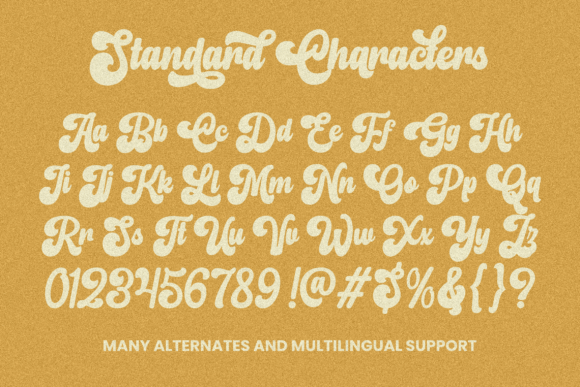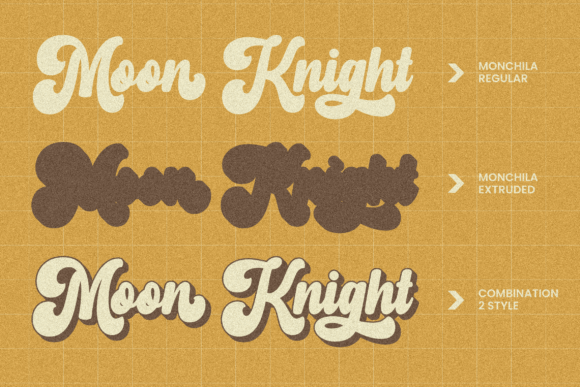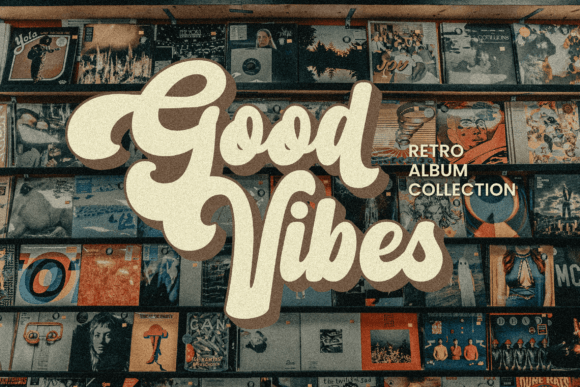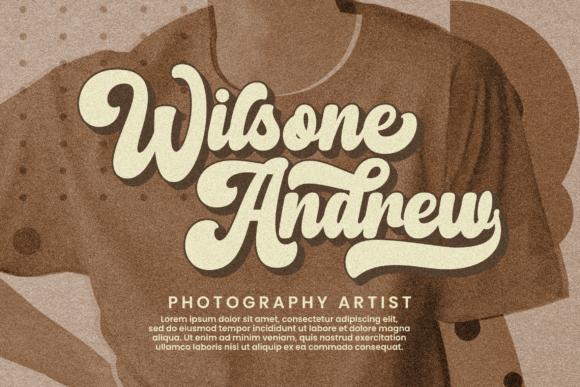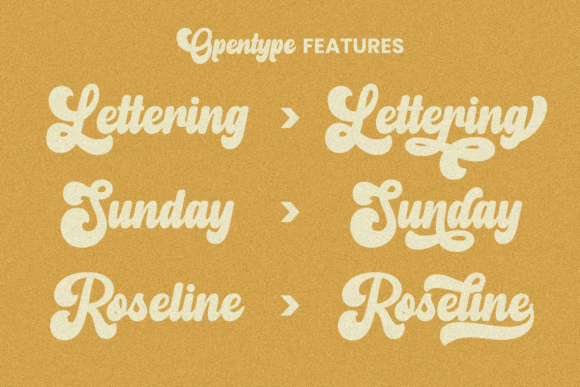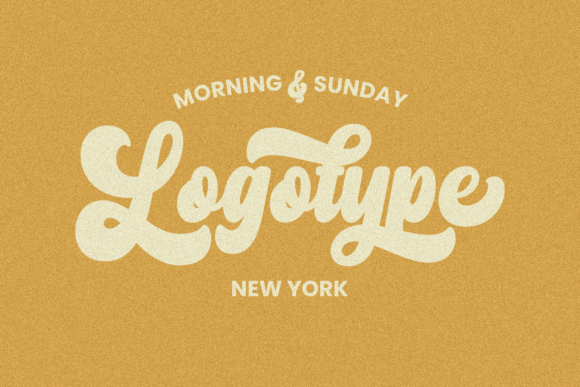
Introduction to Monchila Font
Monchila is a fun, retro-style script display font that is ready to take your designs to the next level.
Add it to your vintage-inspired posters, stickers, apparel, or social media posts and you will definitely impress your audience This font is PUA encoded, which means you can access all of the glyphs and swashes with ease.